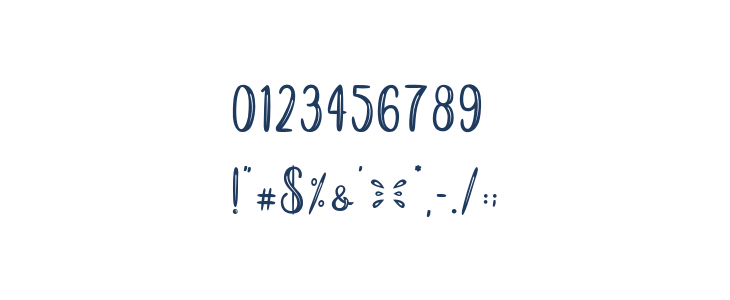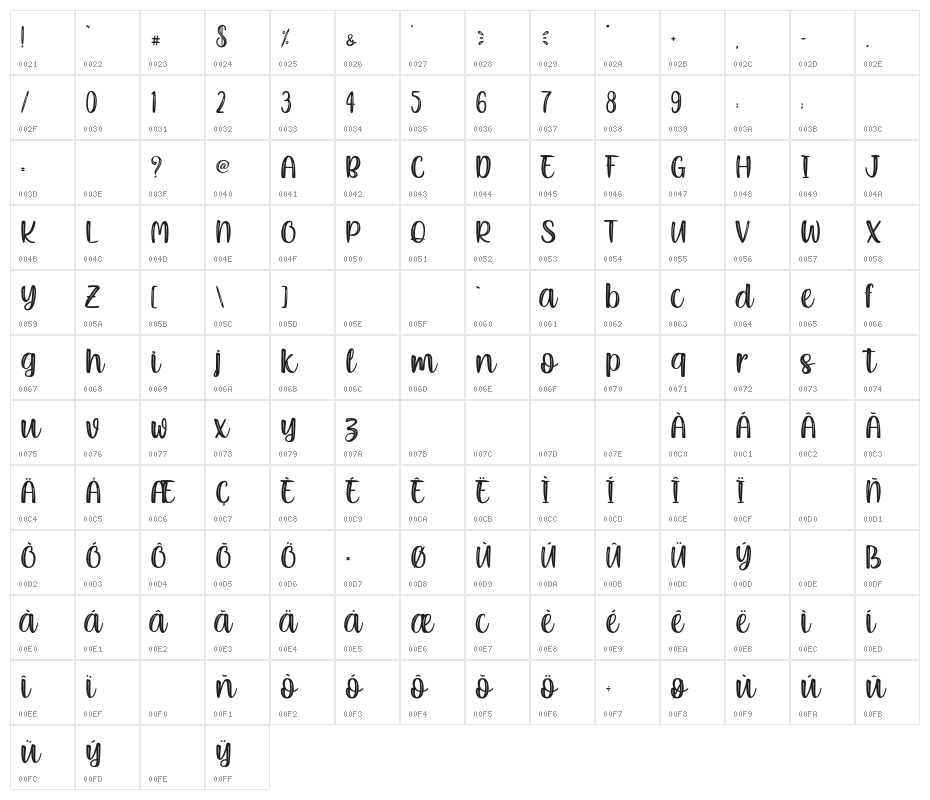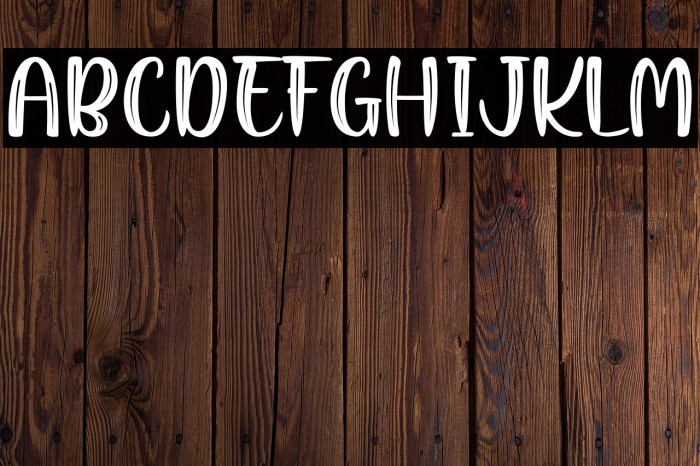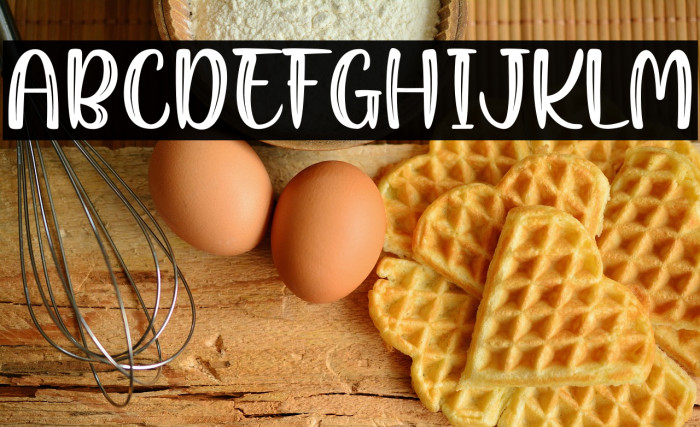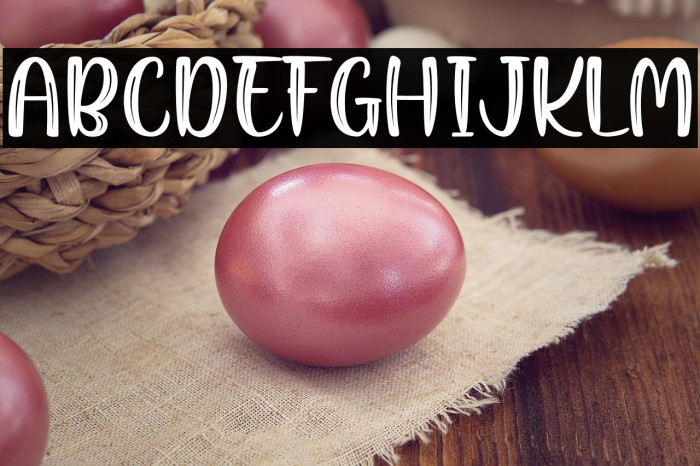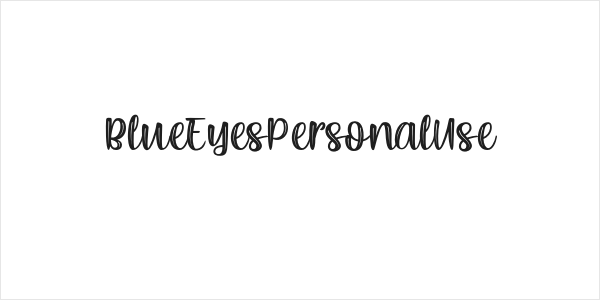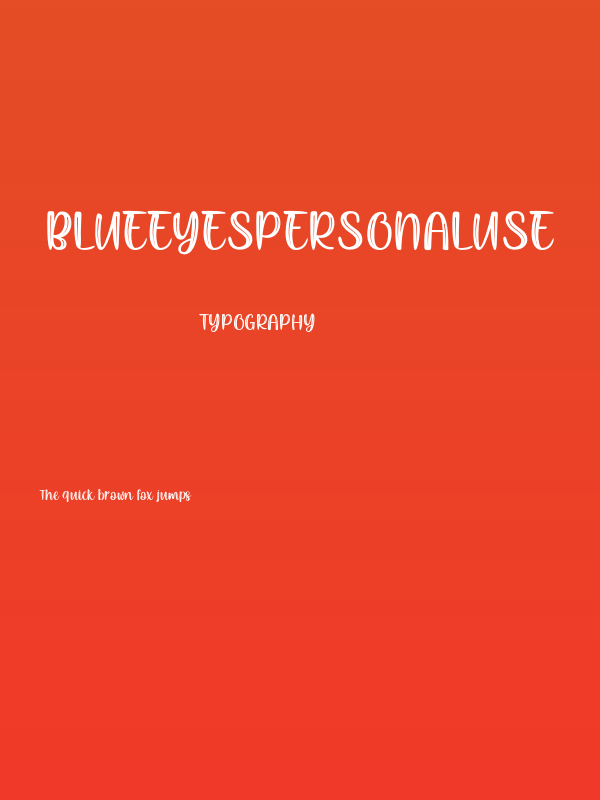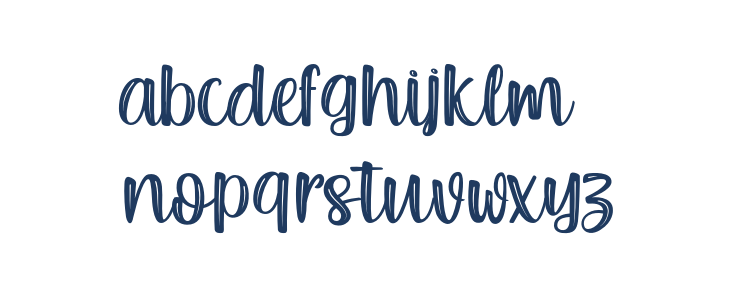
BlueEyesPersonalUse Font
BlueEyesPersonalUse Description
This font features a playful and whimsical style, characterized by its bold and flowing script. The letters are rounded with a slight slant, giving them a dynamic and lively appearance. The uppercase letters maintain a consistent height, while the lowercase letters exhibit a charming bounce, adding to the font's casual and friendly feel. The numerals are clear and easy to read, matching the overall aesthetic. Special characters are creatively designed, complementing the font's playful nature. This font is perfect for projects that require a touch of fun and personality.
| Overall Style | Playful |
| Use Case | Logos, Headlines, Invitations |
| Proposed Projects | Ideal for greeting cards, playful branding, children's books, and social media graphics. |